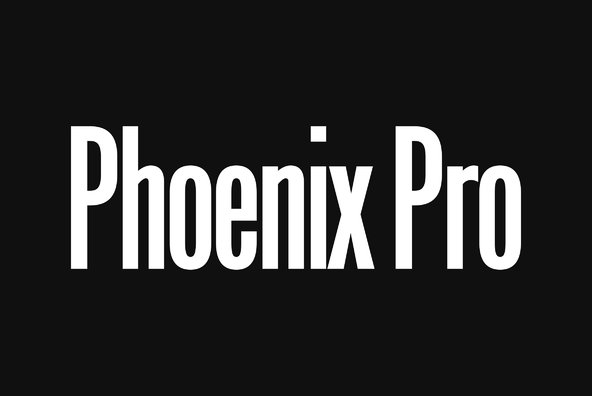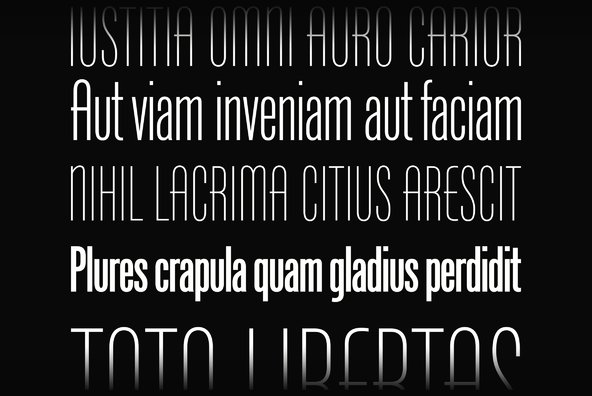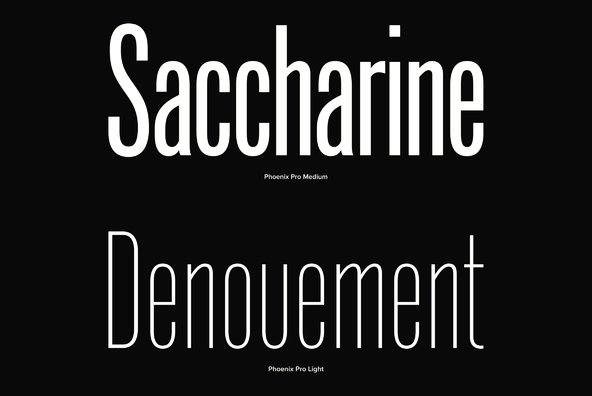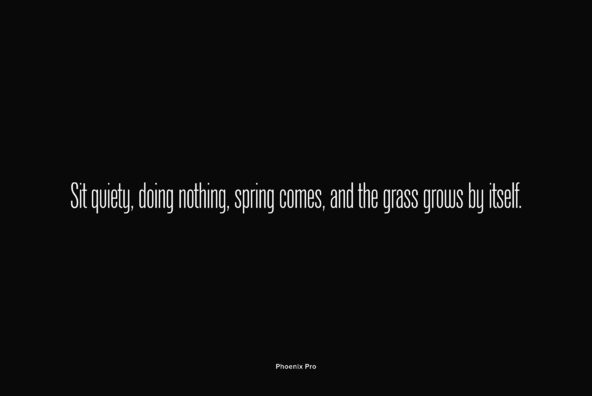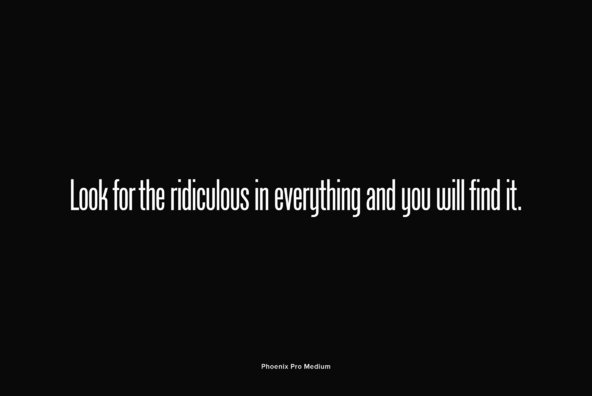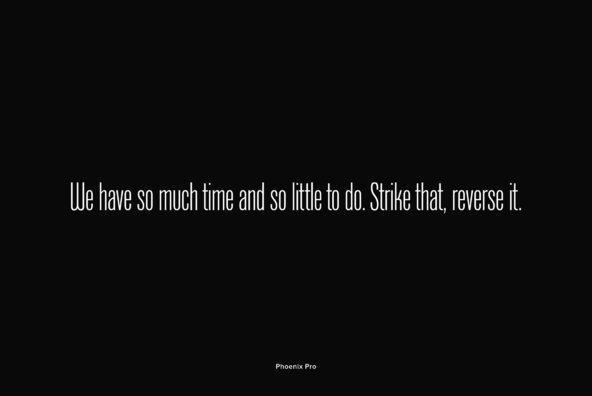
Phoenix Pro
Designed by Steve Jackaman and Ashley Muir. The original Phenix typeface was produced in 1935 by Morris Fuller Benton for ATF. Utilizing the original proofs, we have added three additional complementary weights with all the alternate glyphs. Our Phoenix Pro contains all the high-end features expected in a quality OpenType Pro font.